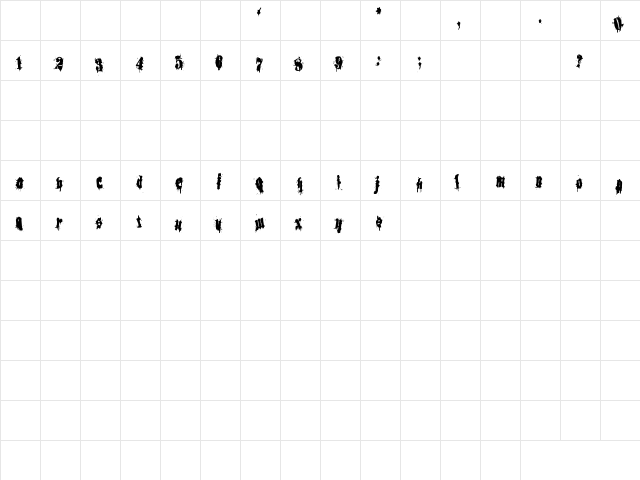
Kirkita Regular
Design Context for Kirkita Typeface
Kirkita is a composed and adaptable typeface that performs quietly and consistently across a wide range of design contexts.